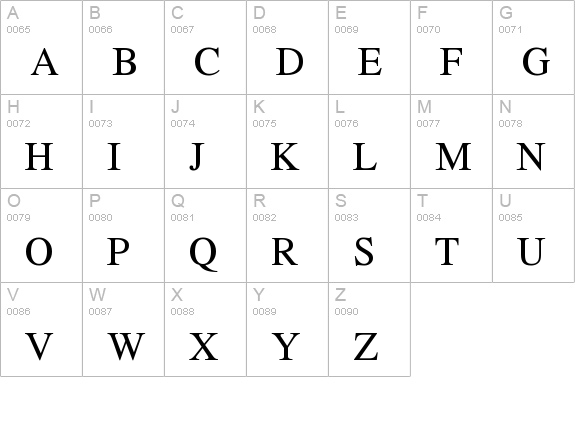
Romand Genealogie Font Details
Romand Genealogie font is a beautifully designed typeface that exudes elegance and sophistication. With its classic yet modern style, this font is perfect for adding a touch of sophistication to any project. The intricate details and graceful curves of Romand Genealogie make it a standout choice for branding, invitations, and more. What sets Romand Genealogie font apart is that it is not only visually stunning but also completely free to download. This means that you can access this exquisite font without any cost, making it a valuable addition to your design toolkit. You can easily download Romand Genealogie font at FontsMarket.com, where it is readily available for your creative projects. Whether you are looking to elevate your branding or add a touch of elegance to your designs, Romand Genealogie font is the perfect choice. Download it for free today and explore the endless possibilities it offers for your next project.